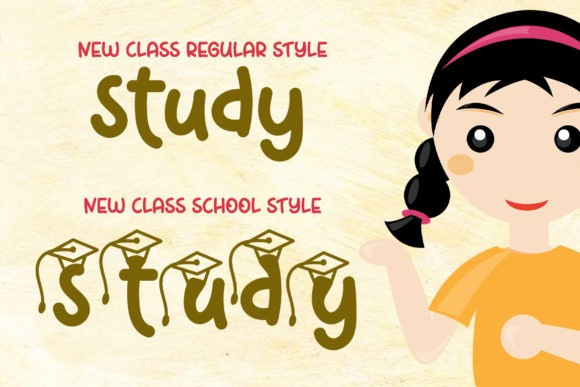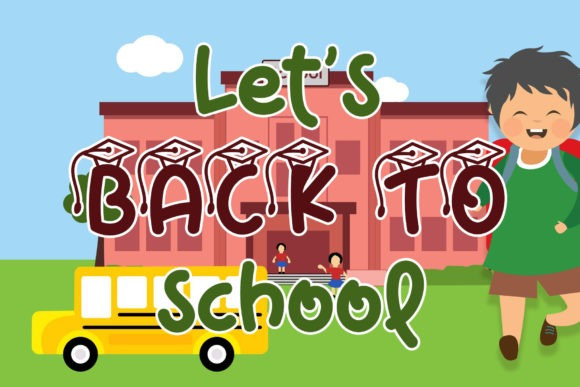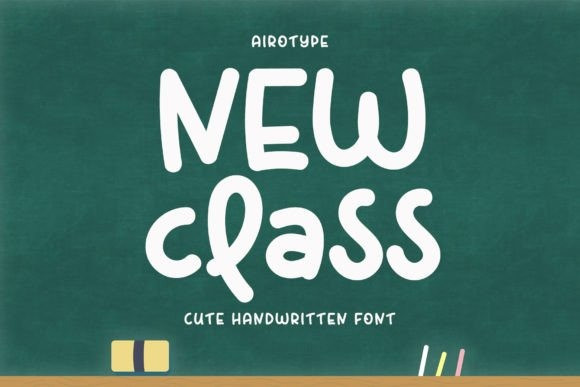
New Class Handwriting Font
New Class Handwriting Font is a fun and friendly handwritten font. It features school-themed characters and it feels sweet and playful. Take your school projects to the next level with this unique typeface!